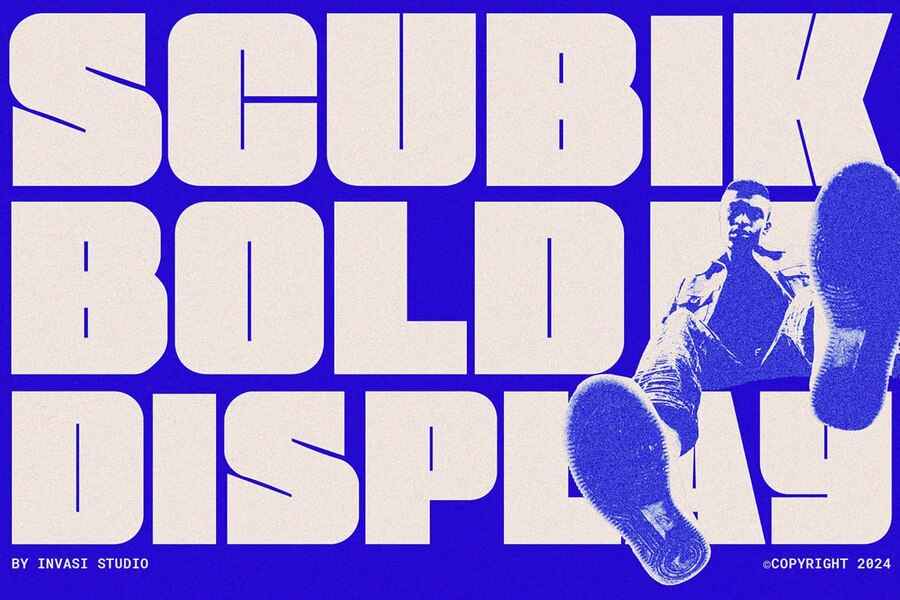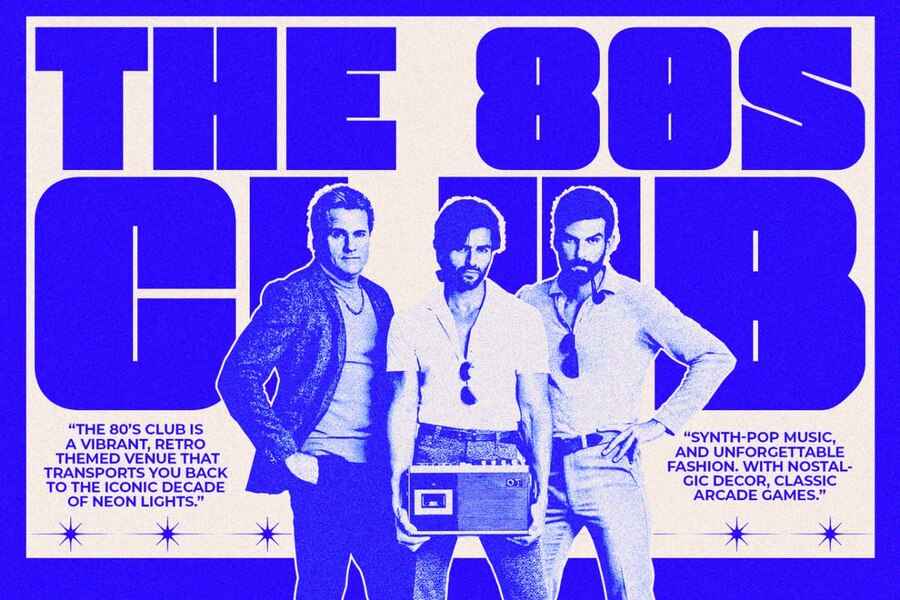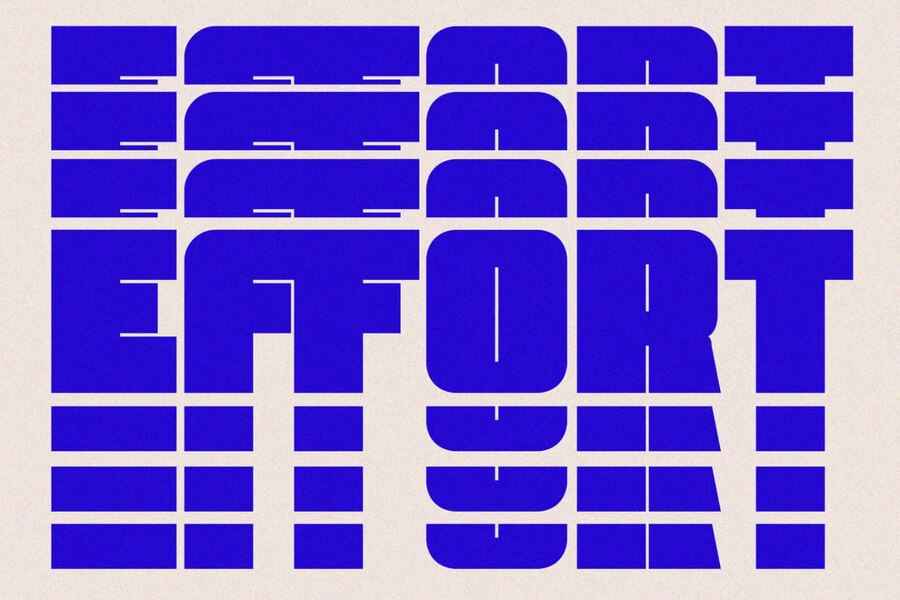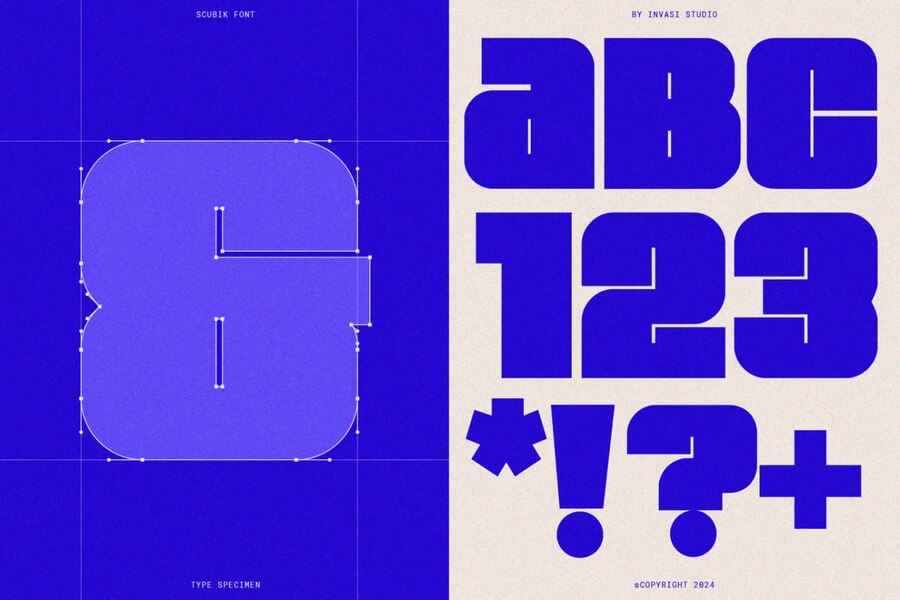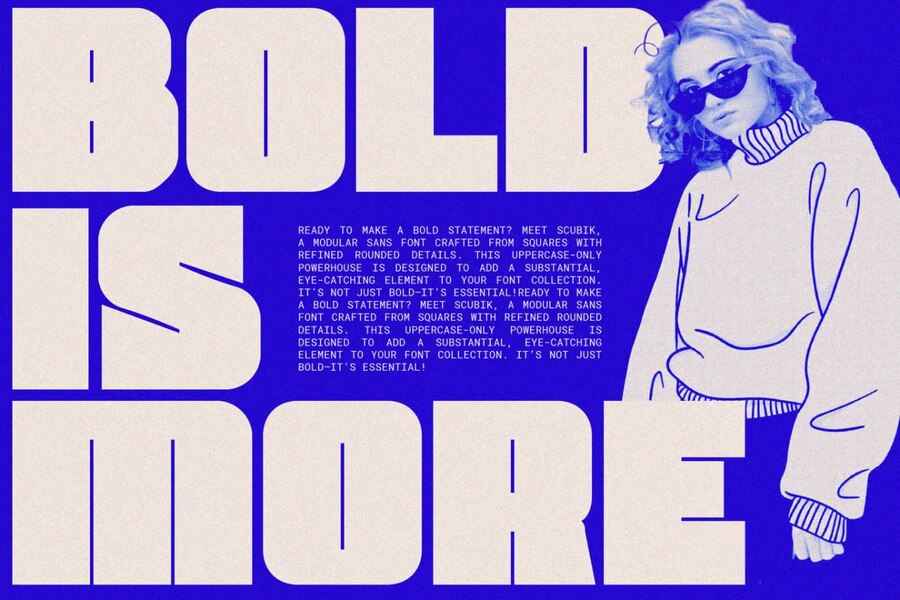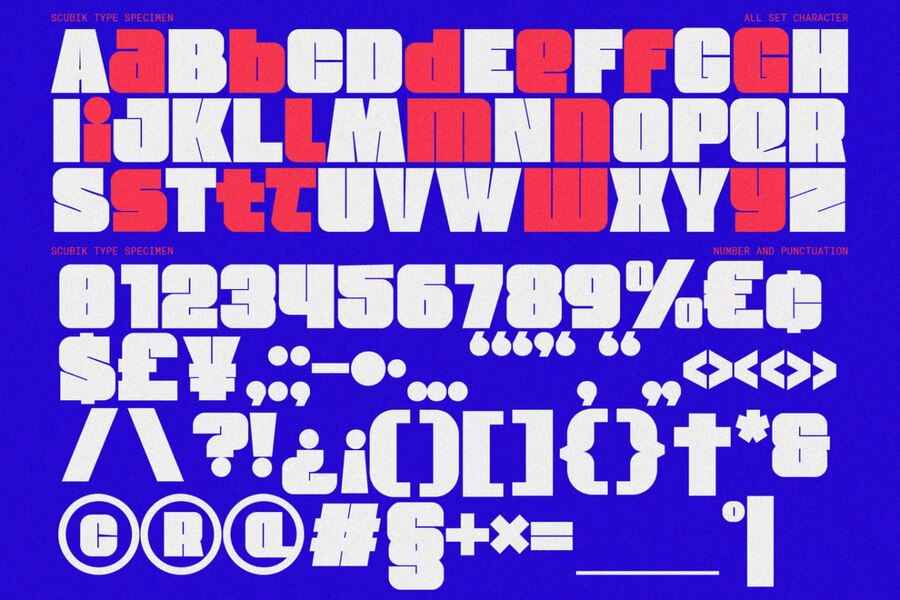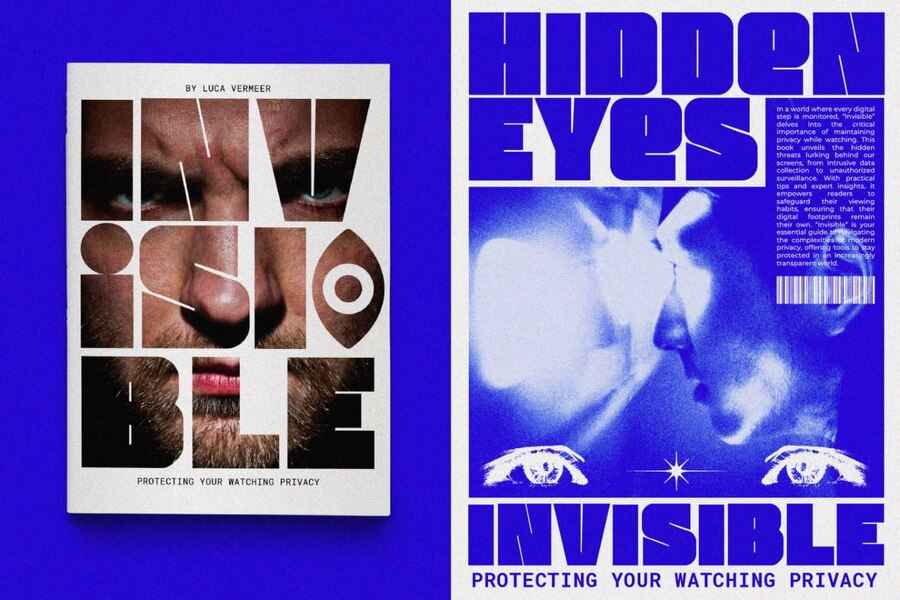
Scubik — Bold Modular Font
About the product: Scubik — Bold Modular Font
✦ Meet Scubik, a modular sans font crafted from squares with refined rounded details. This uppercase-only powerhouse is designed to add a substantial, eye-catching element to your font collection. It’s not just bold—it’s essential!
✦ Scubik blends geometric precision with subtle softness, which is ideal for projects that require both impact and readability. Beyond its striking appearance, Scubik comes equipped with stylistic alternates, ligatures, and multilingual Latin support, making it versatile for everything from headlines and posters to product packaging and logotypes. Dive into Scubik and transform your creative work with a font that’s as bold as your ideas.